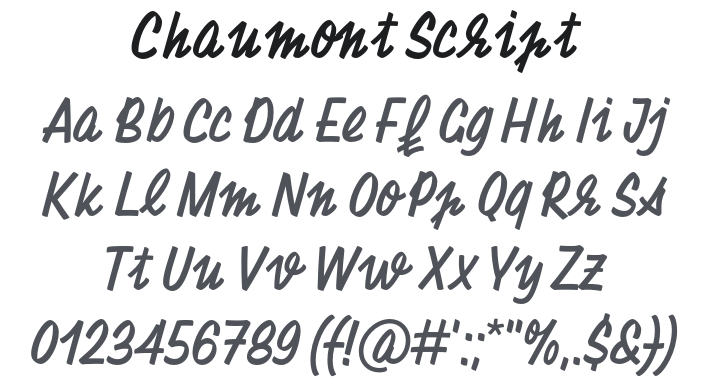
Chaumont Script Font
About Chaumont Script
Timothée Gouraud (Fabrication Maison) discovered in 2016 the work of Chantal Jacquet, sign painter in Chaumont (Haute-Marne, France) in the 1980s. Intigued by these singular shapes, he contacted ANRT to design a digital font out of it. A complex task, achieved by Alexandre Bassi, who managed to transcribe the rythm and cursivity of this script, through a extended character set (2500 glyphs) and complex OpenType Features.